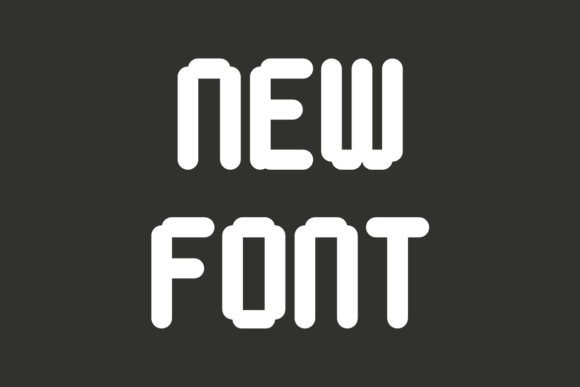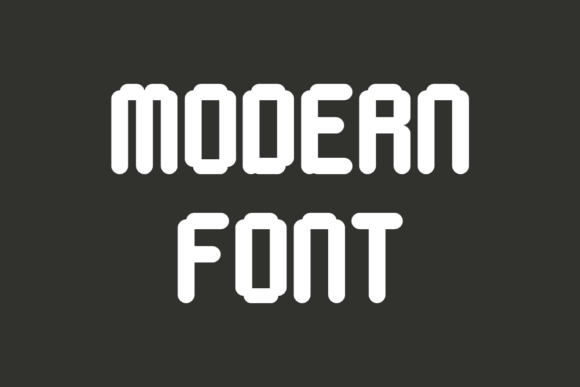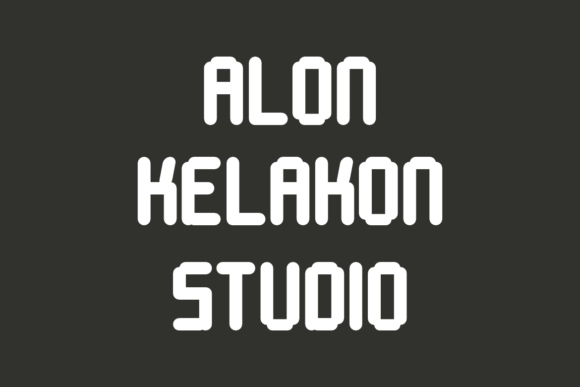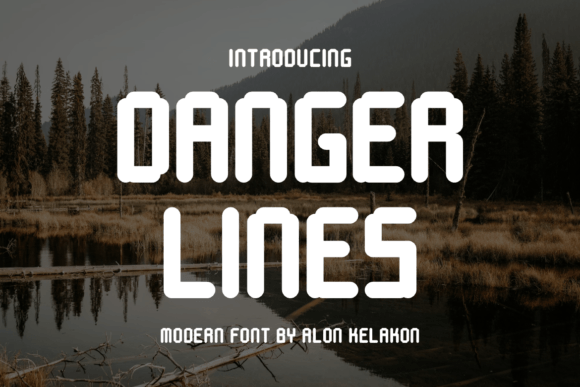
Introduction to Danger Lines Font
Danger Lines is a unique and interesting display font.
A little bit quirky, this font looks incredibly adept on a wide variety of contexts .
Danger Lines Font offers exceptional quality and versatility, making it a valuable addition to your design toolkit. Whether you’re creating for personal projects or commercial use, Danger Lines Font delivers professional results.